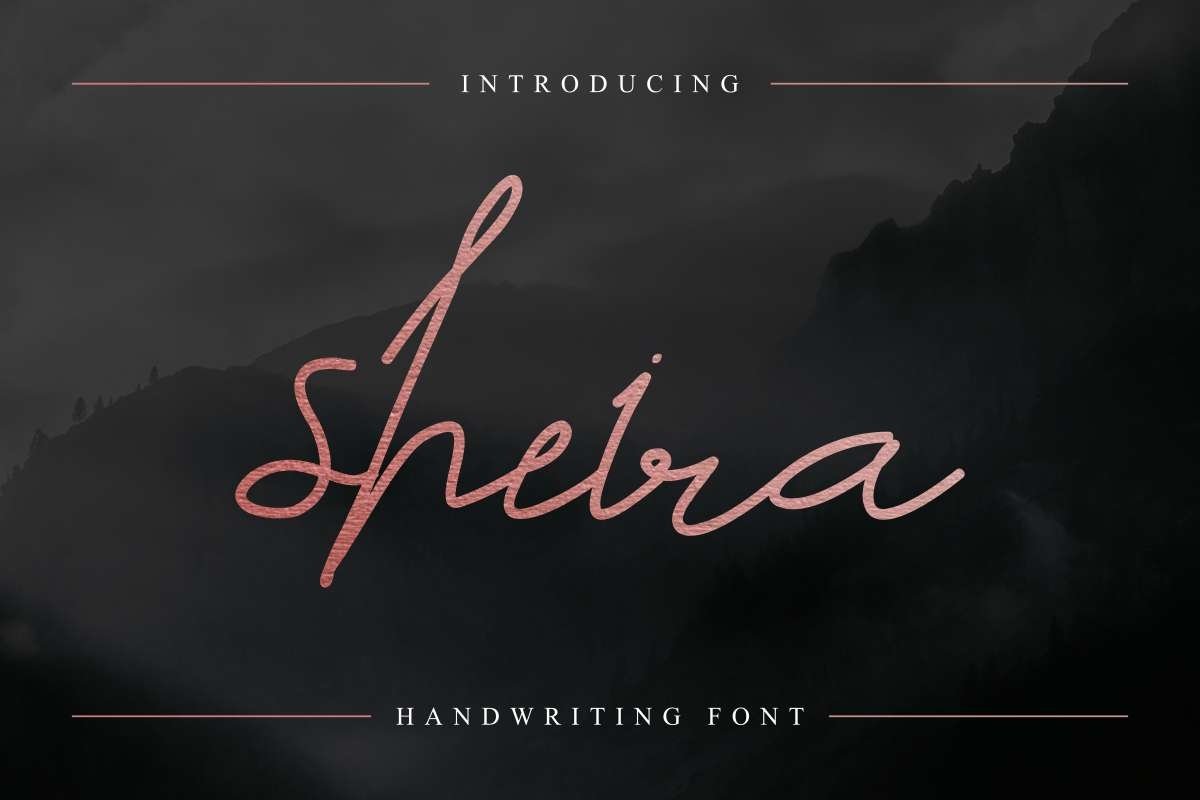
Sheira
Dont go anywhere! EdricStudio is here…Be prepared, a new awesome signature style font is here. Please meet “Sheira” The Great signature font.Sheira Signature is a script font family from edricstudio. This font has a cursive signature look font script. The glyphs are exclusively made with alternatives styles on each lowercase glyphs.  you will be able to make a great products : Logo type, branding, flyer, stationery, business card, signage, flyer, brochure, magazine, offline promotion etc.The zip file will contain several files: